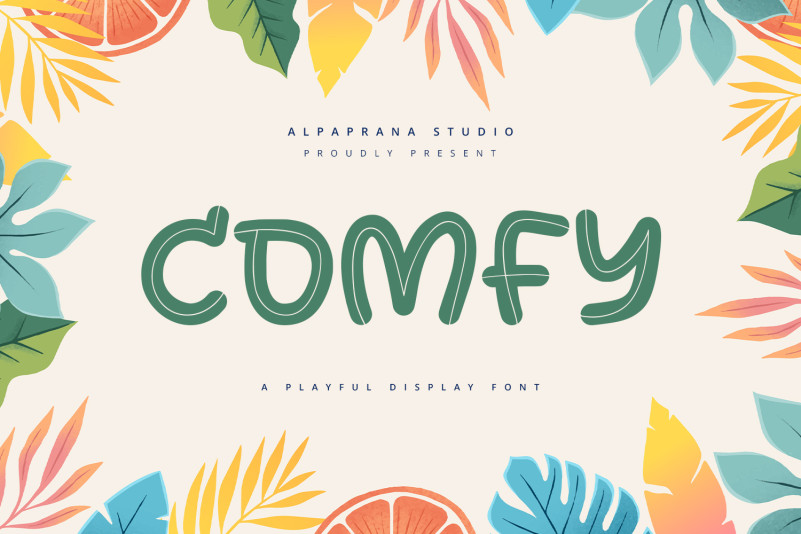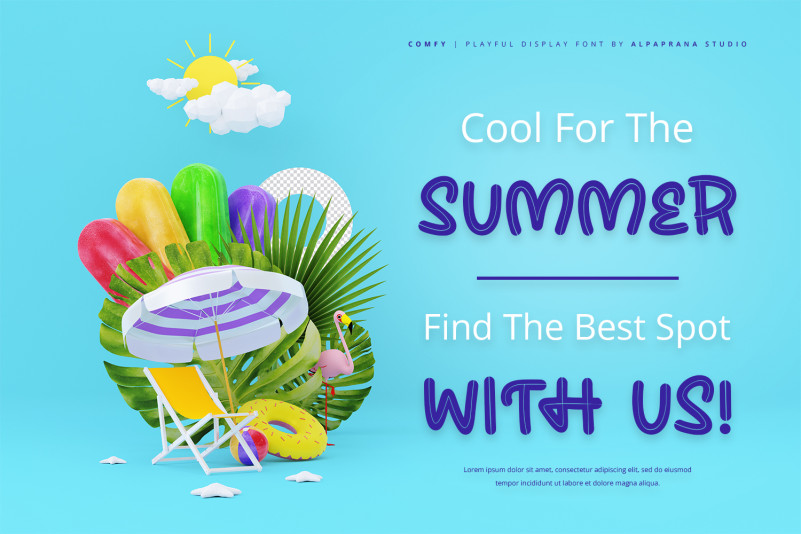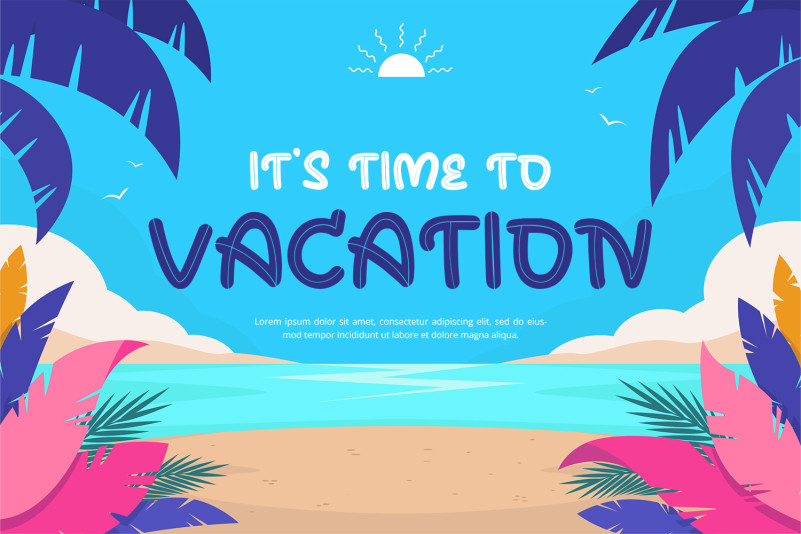
Comfy Font
Comfy Display Font is a playful display font with authentic and playful feels. It will be perfectly used for Branding, Logo Design, Lettering, Logotype, Clothing, Poster, magazine, packaging, posters, shopping bags, t-shirts, book covers, photography, special events and other design project.